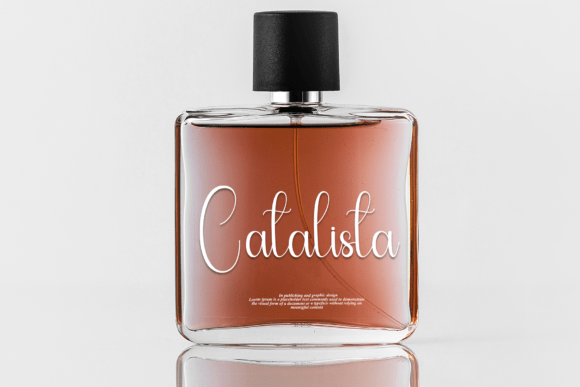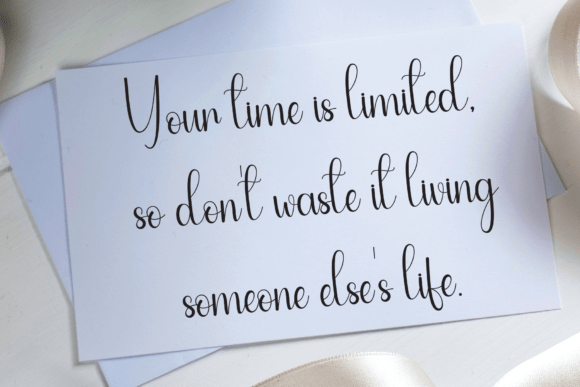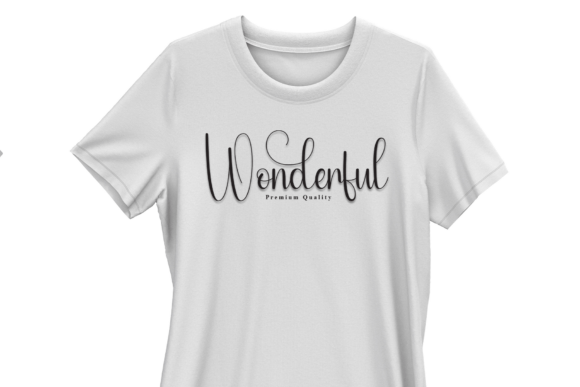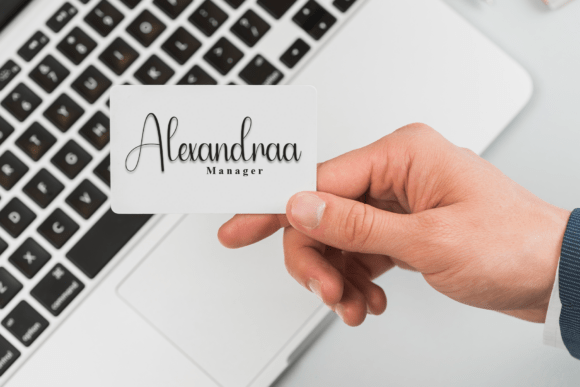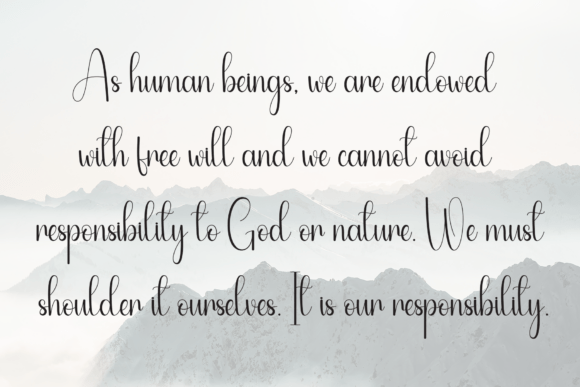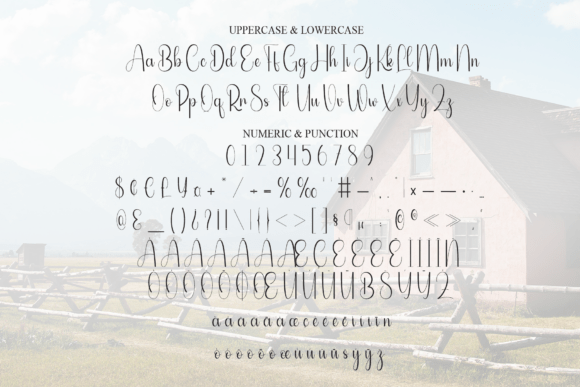
Introducing Farmhouse Font: The Perfect Blend of Sweetness and Friendliness
Are you looking for a font that can add a touch of warmth and personality to your design projects? Look no further than Farmhouse Font, a charming and approachable handwritten display font that embodies both sweetness and friendliness. With its delightful and whimsical style, this font is perfect for creating enchanting wedding invitations, heartfelt cards, and any design project that requires a dash of joy and fun.
The Characteristics of Farmhouse Font
Farmhouse Font is a handwritten display font that boasts a unique and playful style. Its delicate and cursive lines are carefully crafted to create a sense of movement and fluidity, making it perfect for designs that require a touch of elegance and sophistication. The font’s whimsical style is characterized by its irregularities and imperfections, which give it a charming and human feel.
Farmhouse Font is an excellent choice for wedding invitations, save-the-date cards, and other stationery designs. Its sweet and charming style perfectly captures the joy and excitement of the special day, making it an ideal font for couples who want to convey their love and happiness. The font’s playful and whimsical style also makes it perfect for creating heartfelt cards for birthdays, anniversaries, and other special occasions.
Adding a Touch of Joy and Fun to Design Projects
Farmhouse Font is not just limited to wedding invitations and cards. Its playful and festive style makes it an excellent choice for any design project that requires a dash of joy and fun. Whether you’re designing a poster, brochure, or social media graphic, this font is sure to bring a smile to your audience’s face. Its whimsical style is also perfect for creating eye-catching headlines and titles that grab attention and convey a sense of excitement.
Why Choose Farmhouse Font?
So why choose Farmhouse Font over other fonts? Here are just a few reasons:
- Unique and Playful Style: Farmhouse Font boasts a unique and playful style that sets it apart from other fonts.
- Whimsical and Charming: The font’s whimsical and charming style makes it perfect for designs that require a touch of elegance and sophistication.
- Perfect for Wedding Invitations and Cards: Farmhouse Font is an excellent choice for wedding invitations, save-the-date cards, and other stationery designs.
- Adds a Touch of Joy and Fun: The font’s playful and festive style makes it perfect for adding a dash of joy and fun to design projects.
Here are a few tips for using Farmhouse Font in your design projects:
- Use it as a Display Font: Farmhouse Font is perfect for use as a display font, making it ideal for headlines, titles, and other prominent text elements.
- Pair it with a Simple Font: Pair Farmhouse Font with a simple font, such as a sans-serif font, to create a beautiful contrast.
- Experiment with Colors: Experiment with different colors to find the perfect combination that brings out the font’s playful and whimsical style.
Farmhouse Font is a charming and approachable handwritten display font that perfectly encapsulates both sweetness and friendliness. With its delightful and whimsical style, this font is perfect for creating enchanting wedding invitations, heartfelt cards, and any design project that requires a dash of joy and fun. Whether you’re a designer or crafter, Farmhouse Font is an excellent choice for adding a touch of warmth and personality to your designs.